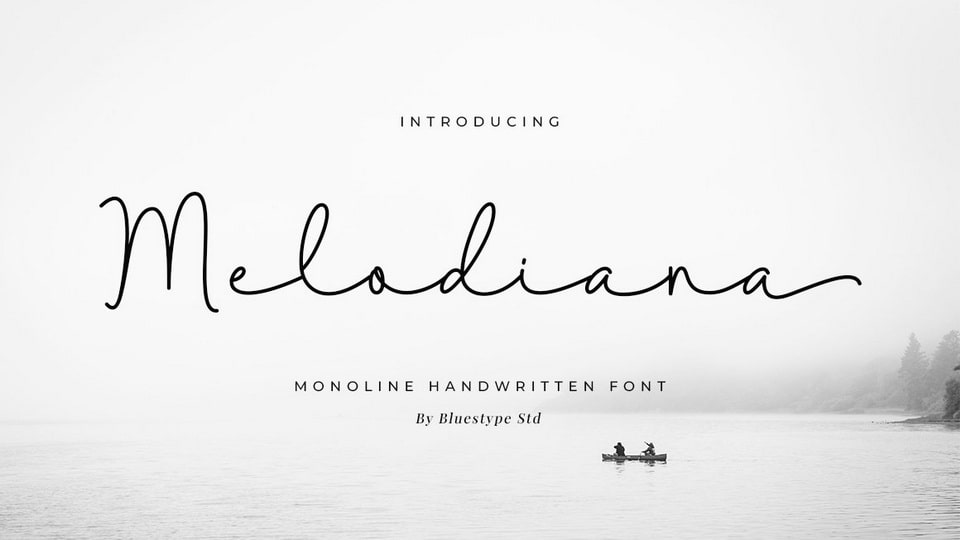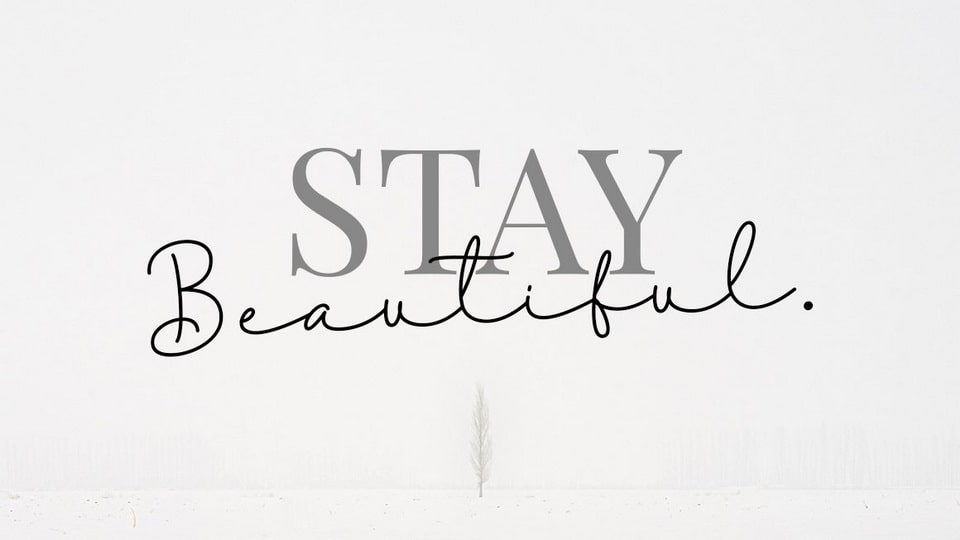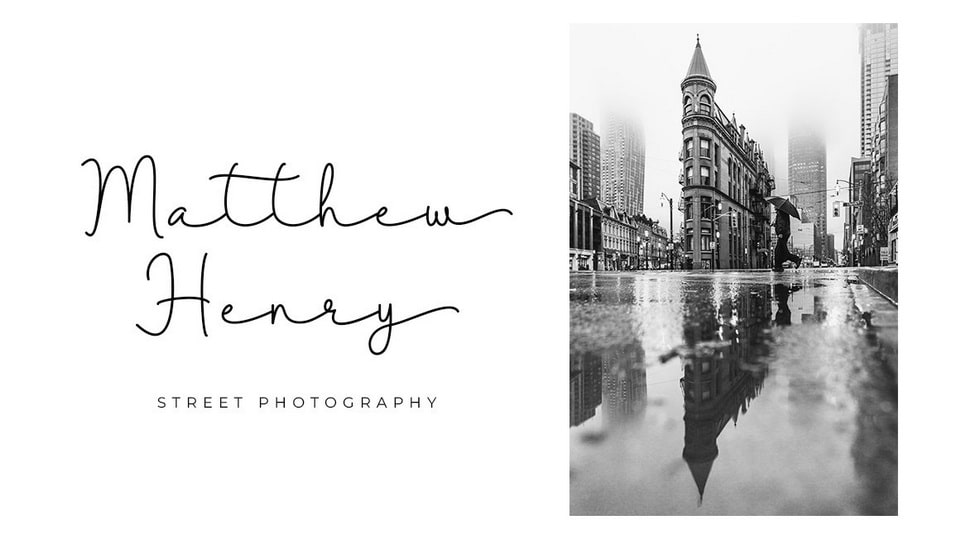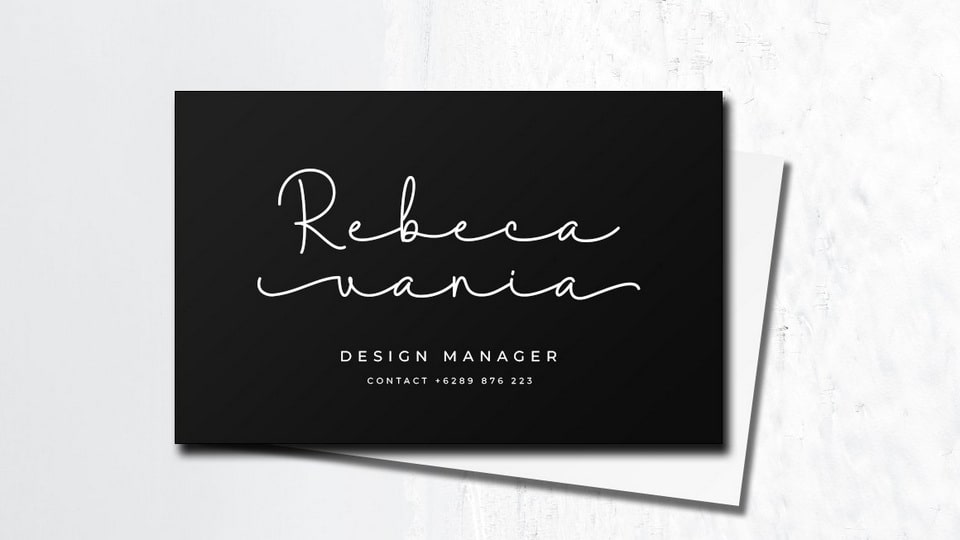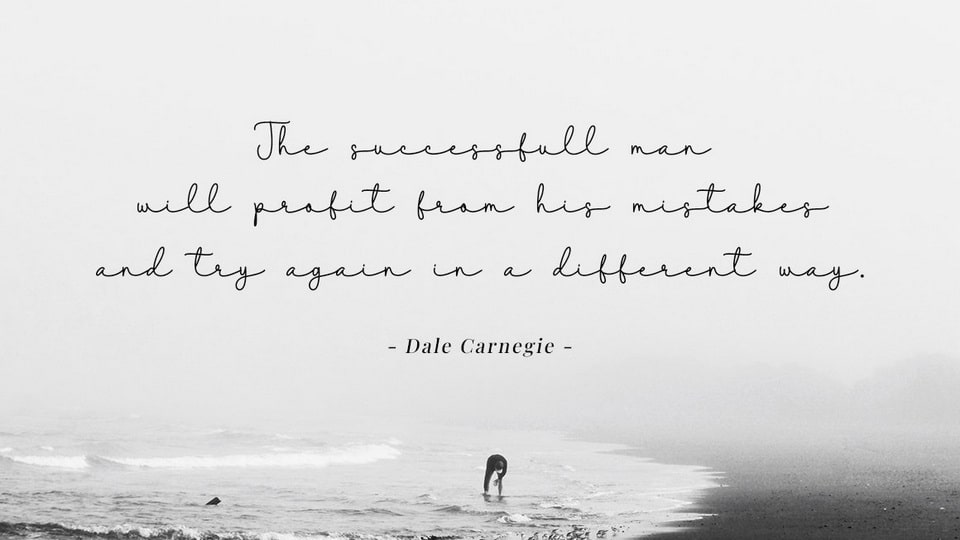
Melodiana is an elegant handwritten font that has graceful and beautiful curves and a long tail. This font is PUA encoded, which means you can access all of the glyphs with ease!
This font is perfect for use on weddings, branding design, business card, logotype, magazines, quotes, fashion, watermarks, invitations.